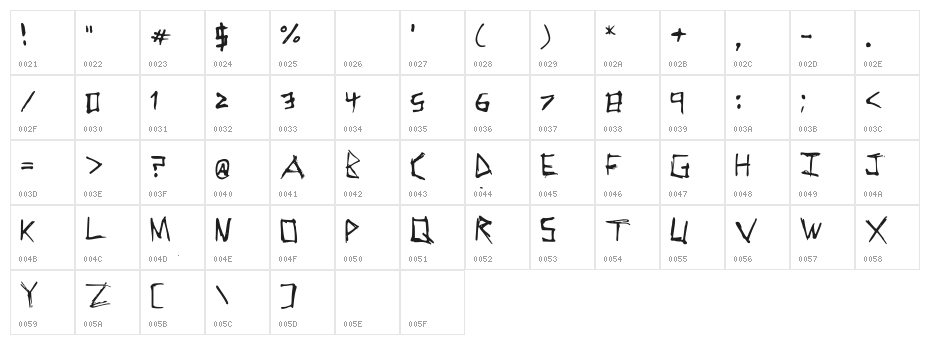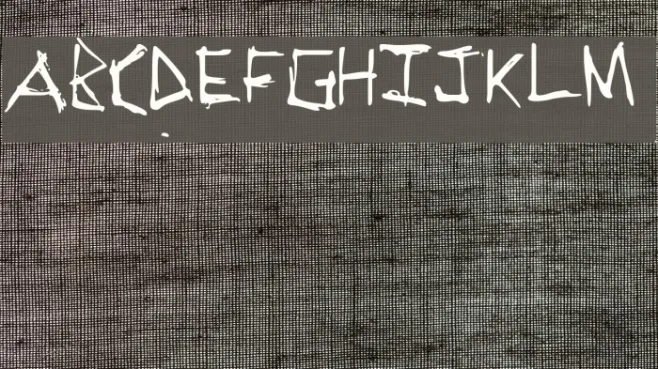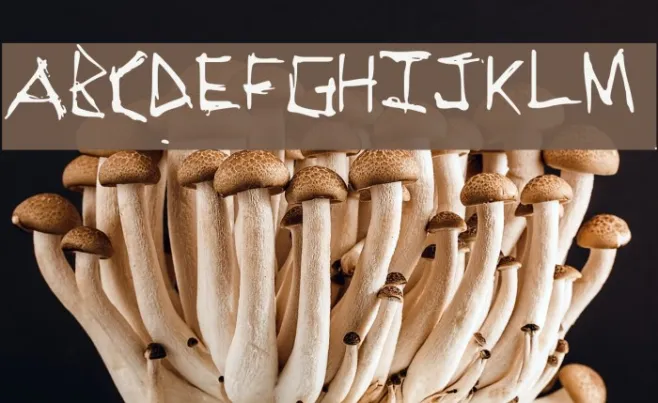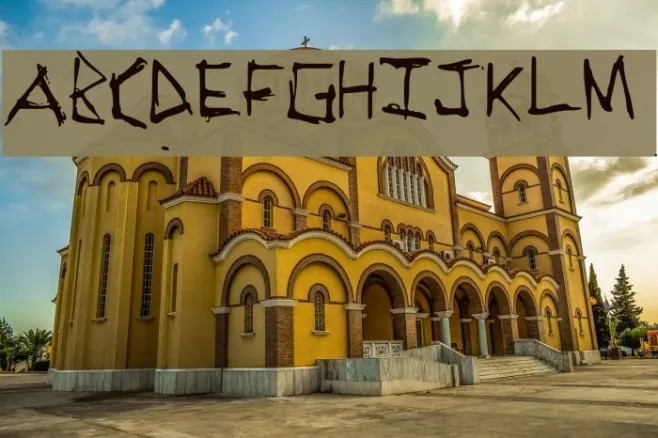
Scribble Font
Scribble Description
This font features a dynamic and energetic style, reminiscent of hand-drawn scribbles. The characters are irregular and jagged, giving an impression of spontaneity and raw expression. The uppercase and lowercase letters maintain a consistent aesthetic, with sharp angles and uneven strokes. Numbers and special characters follow the same design principles, adding to the cohesive look. The overall appearance is bold and striking, making it suitable for attention-grabbing designs.
| Proposed Projects | Ideal for edgy posters, album covers, graffiti art, and creative branding projects. |